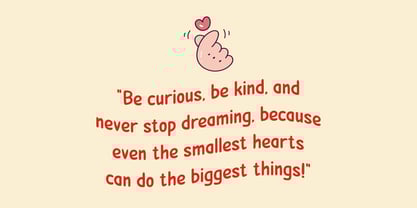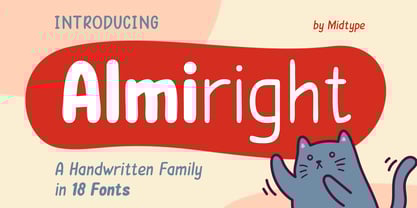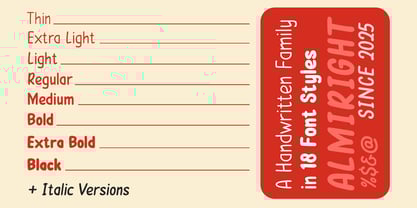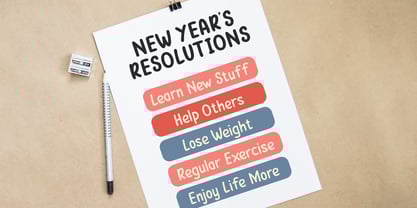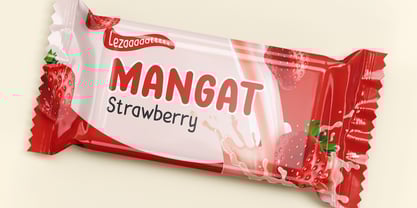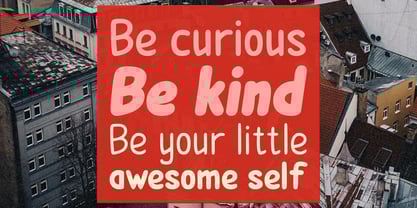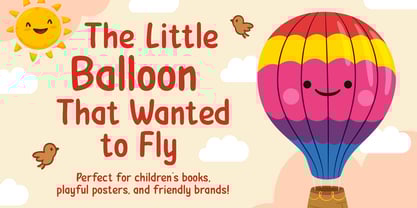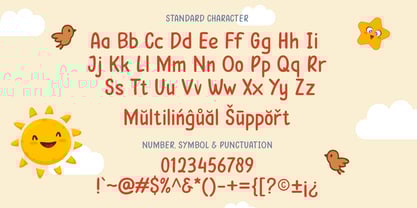
Almiright
by Midtype
The Almiright Font Family was designed by Dwi Nur Hamida and published by Midtype. Almiright contains 18 styles and family package options.
Almiright is a handwritten font in rounded, rough sans serifs style, fun and comical handwritten family. Available of 9 weights from thin to black. with a curved character that is round on thin and increasingly elliptical on black. These 9 different weights also come with italic style, so there are 18 styles in this family.